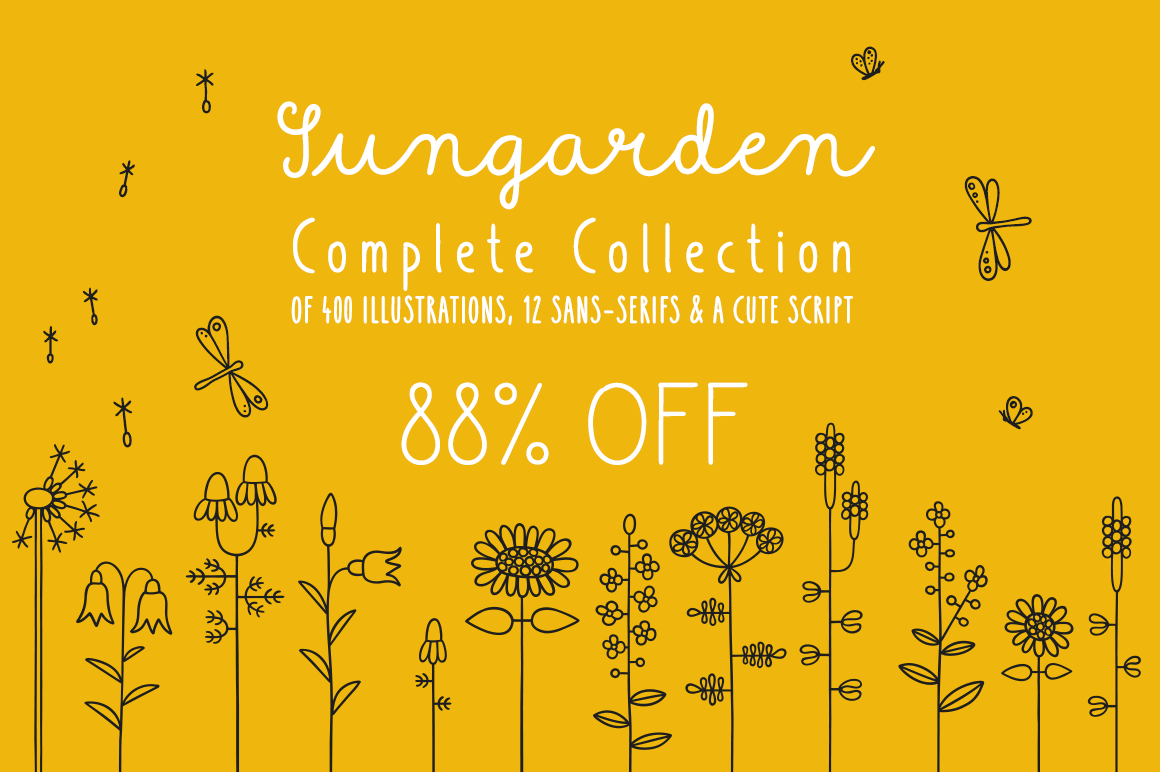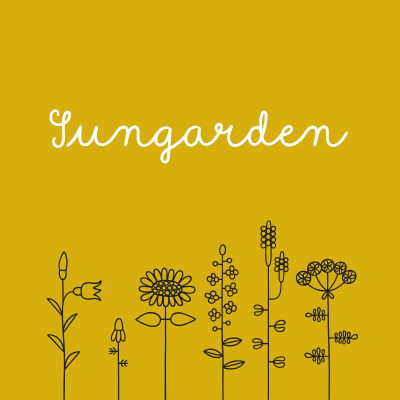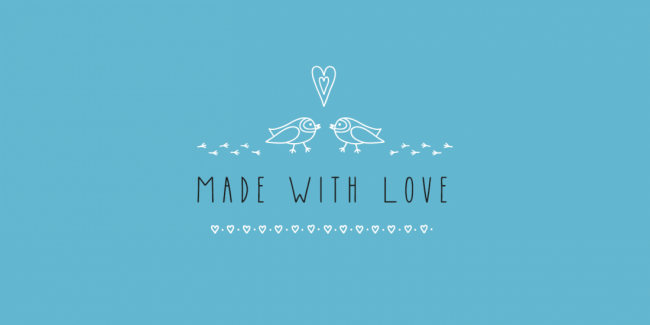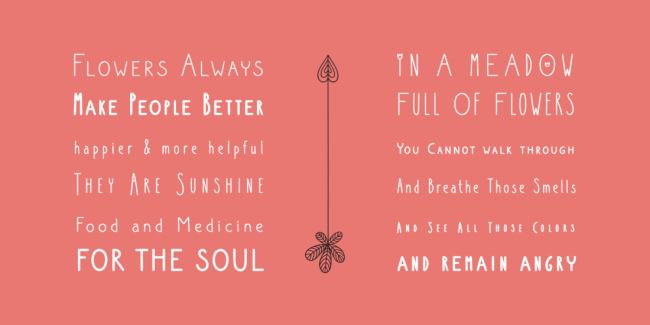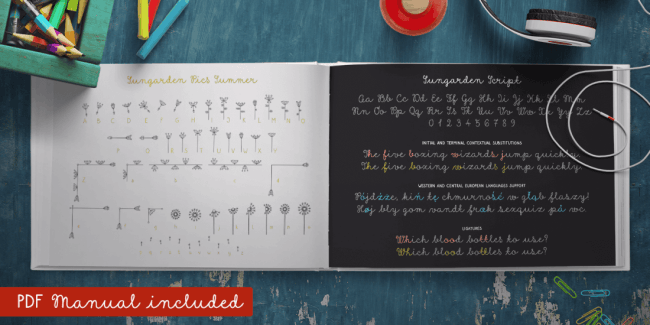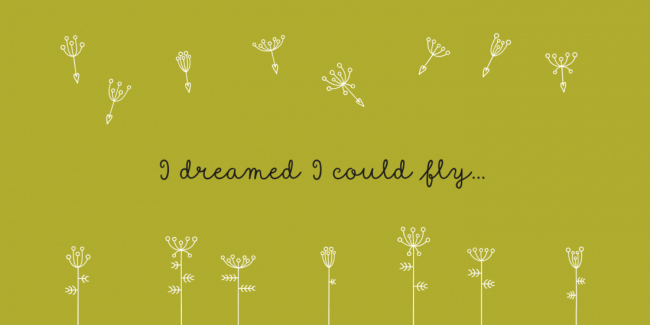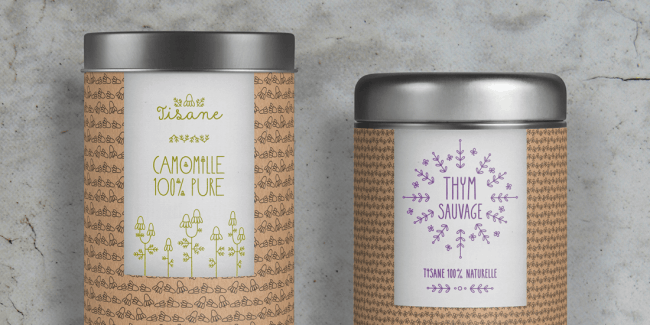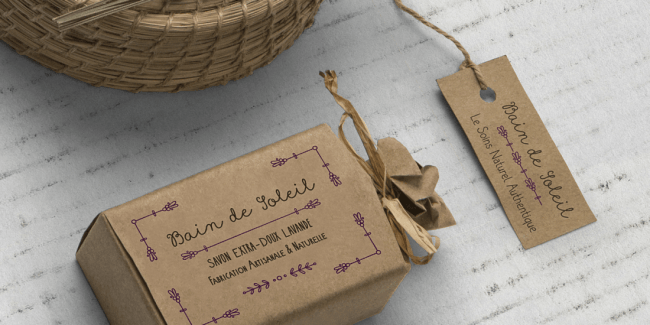
A picture truly is worth a thousand words, especially when your fonts are really disguised as playful line art! The Sungarden Collection sports 400 hand-drawn line illustrations of flowers, birds, hearts, arrows and more. These illustrated fonts blend beautifully with 12 playful sans serif fonts and a cute script font. A true breath of fresh air, this unique collection will delight your clients no matter what your next project turns out to be.
- 400 hand-drawn garden-themed illustrations in 8 fonts.
- Variety of playful illustrations – flowers, birds, leaves, hearts, arrows, snowflakes.
- 12 sans serif fonts and a cute script font – include loads of ligatures, initial and terminal forms, contextual alternates and more.
- Perfect collection for branding, invitations, labels, packaging, menus, books, cosmetic cases, organic food logos and more.